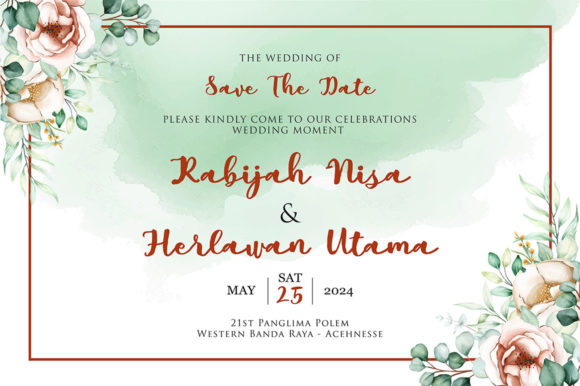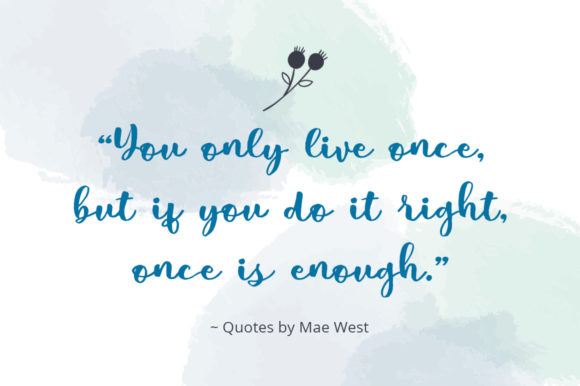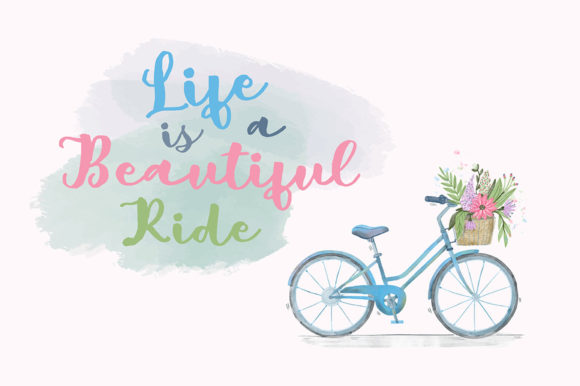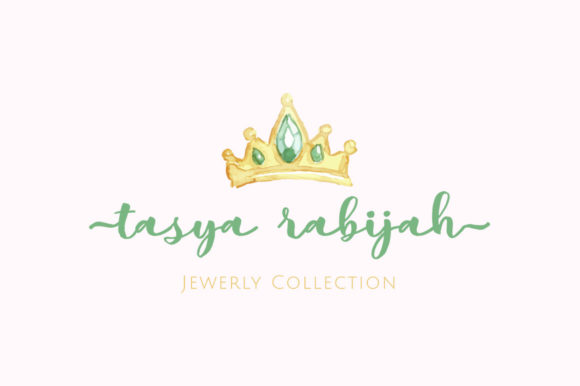
About Kanji Font
Kanji is a delicate and elegant handwritten font. Its distinct and well balanced letters make this font a masterpiece. This font is PUA encoded which means you can access all of the glyphs and swashes with ease!